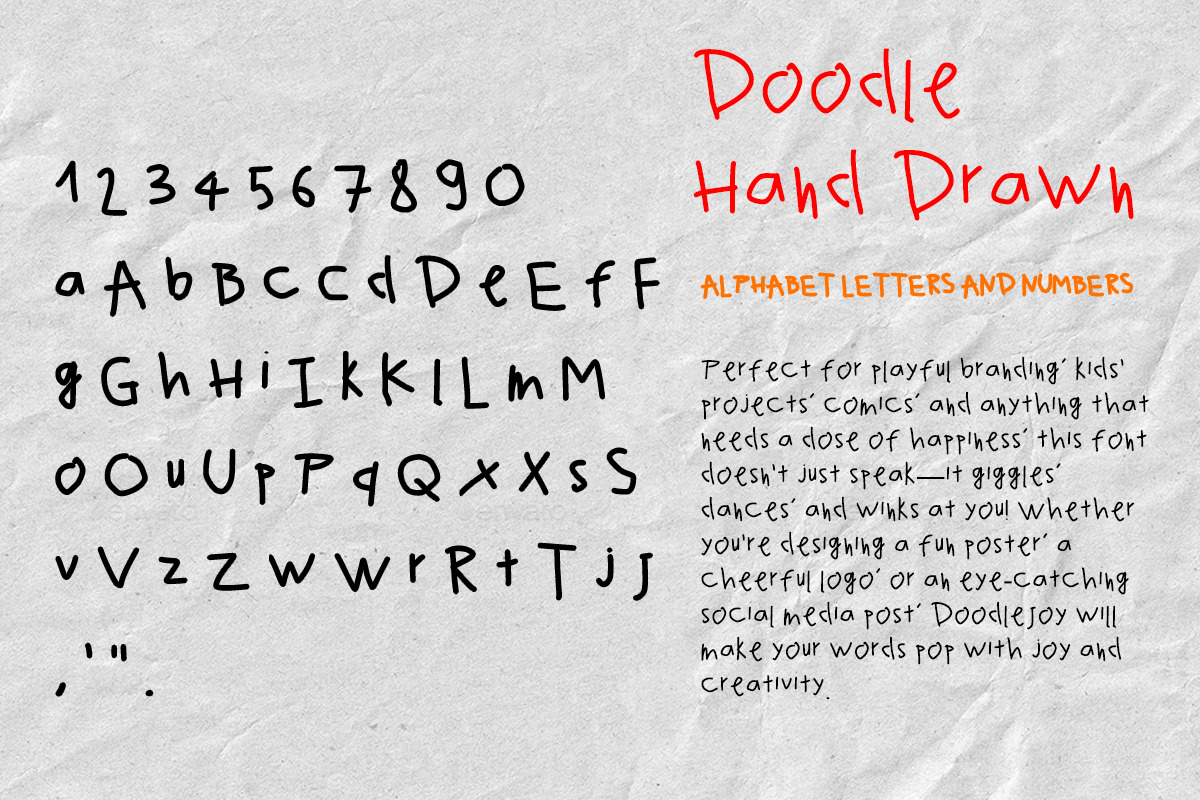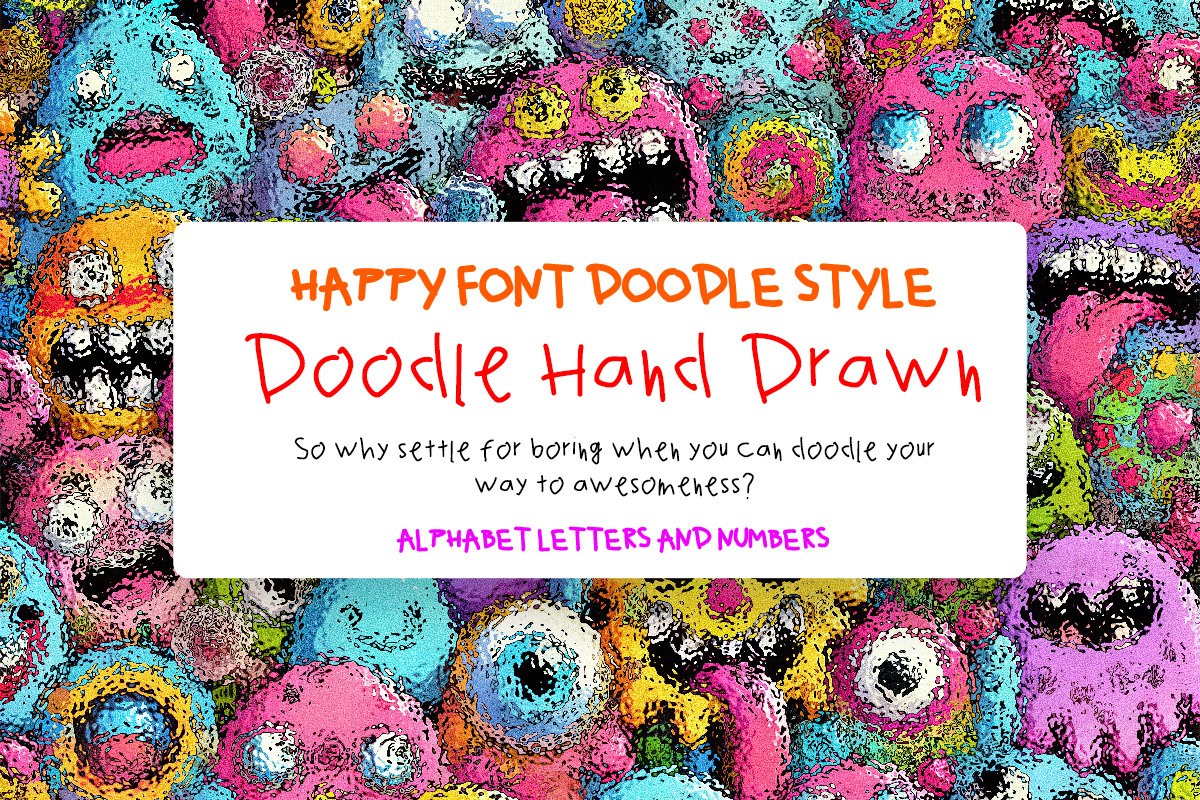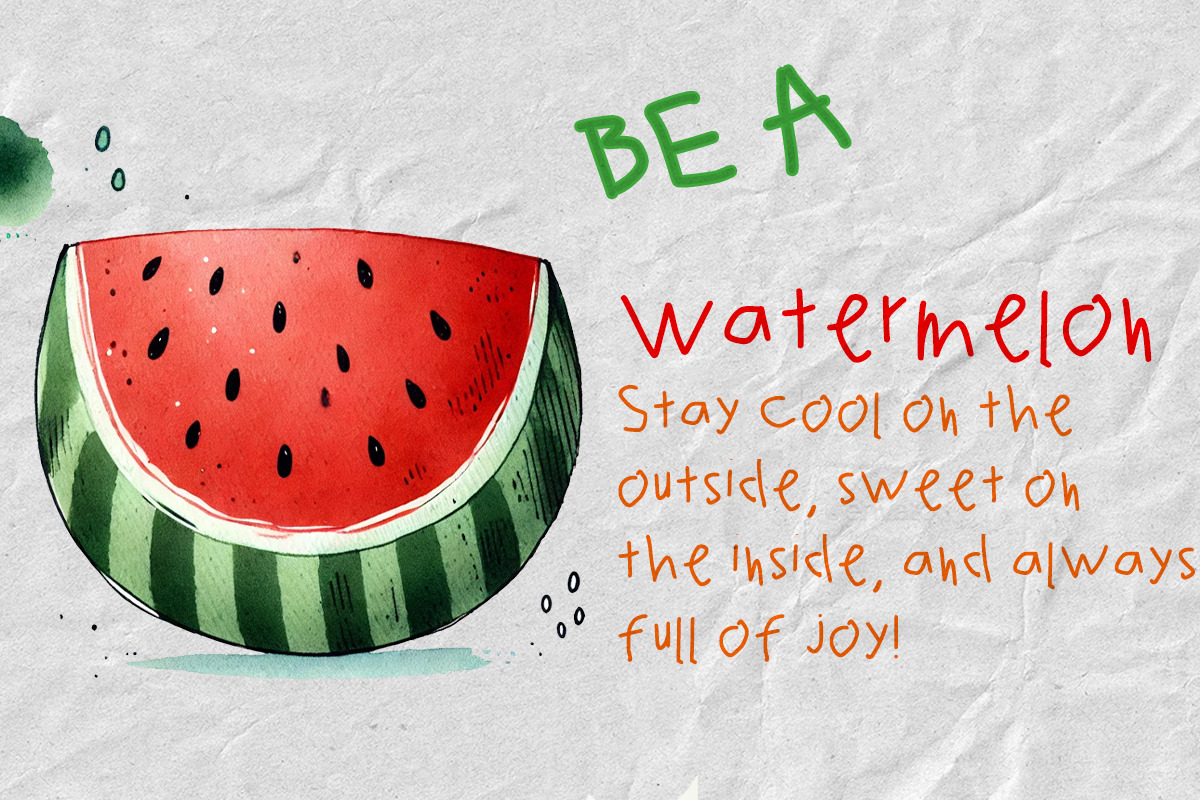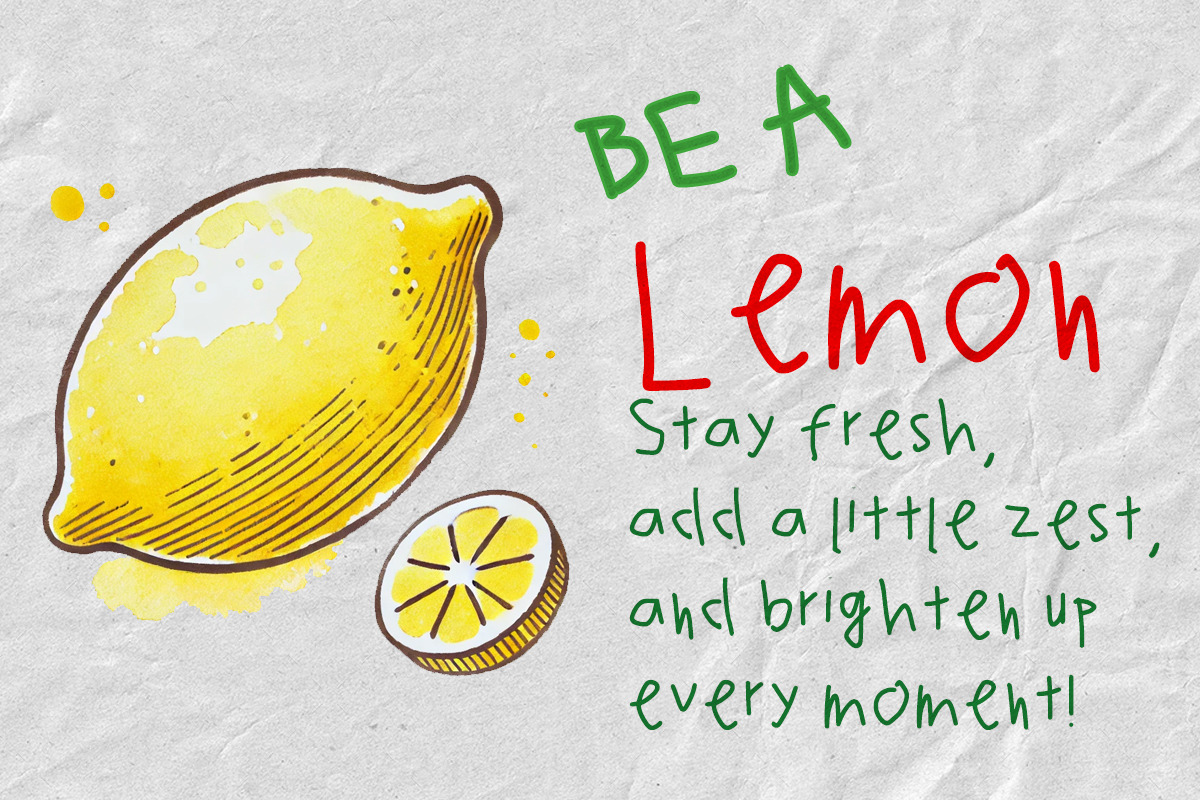
Doodle Hand Drawn Font
Introducing "Doodle Hand Drawn" – The Most Playful Font Ever! 🎨✨
Get ready to add a splash of fun to your designs with Doodle Hand Drawn, the ultimate hand-drawn font bursting with energy and personality! Every letter is packed with quirky shapes, wobbly lines, and a touch of chaos—just like a doodle straight from your imagination.
Perfect for playful branding, kids' projects, comics, and anything that needs a dose of happiness, this font doesn’t just speak—it giggles, dances, and winks at you! Whether you’re designing a fun poster, a cheerful logo, or an eye-catching social media post, Doodle Hand Drawn will make your words pop with joy and creativity.
So why settle for boring when you can doodle your way to awesomeness? 🎉🎨 Get Doodle Hand Drawn and let the fun begin! 🚀